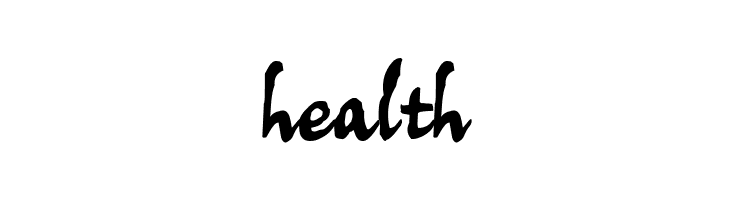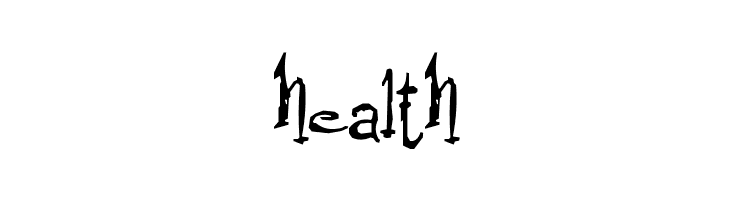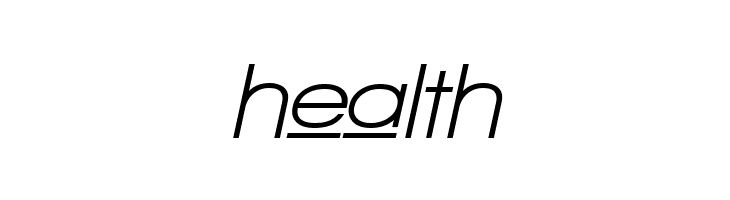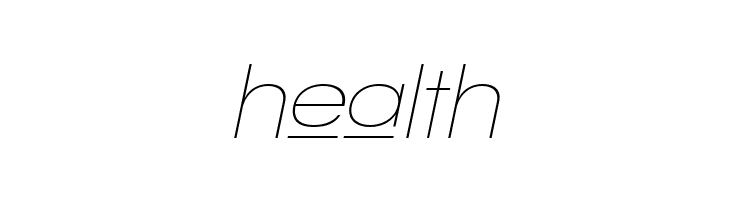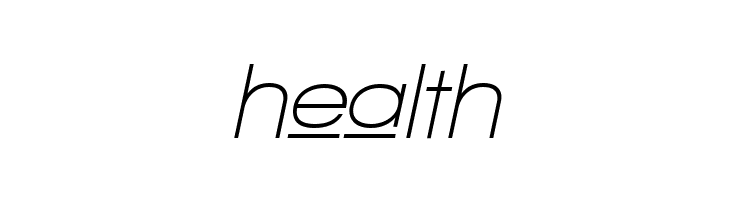
A modern, bold, and italicized typeface with a clean and dynamic design.
A bold, italicized font with a dynamic lightning bolt motif.
A bold, decorative font featuring gender symbols within each character.
A bold, stacked font with a modern and impactful design.
A bold, playful font with rounded, chunky characters.
A bold, slightly slanted serif font with a classic and elegant style.
A vintage, gothic blackletter font with ornate and distressed characters.
An ornate blackletter font with intricate, bold designs and historical flair.
A bold, Gothic-inspired font with sharp angles and strong vertical lines.
A traditional blackletter font with sharp, angular lines and intricate detailing.
A bold, decorative font with playful swirls and curves.
A bold, playful script font with a hand-drawn feel.
A classic serif font with ornate uppercase and traditional lowercase letters.
A cursive, handwritten font with elegant, flowing characters.
A bold, expressive script font with flowing cursive letterforms.
A dynamic and elegant handwritten cursive font.
A playful, chunky font with exaggerated curves and a whimsical style.
A bold, brush-style script font with a lively and artistic flair.
A bold serif font with angular serifs and a modern twist.
A playful, bold handwritten font with rounded, consistent letterforms.
A bold, playful font with rounded, bubbly characters.
A bold, playful font with rounded characters, perfect for creative projects.
An elegant and ornate script font with flowing, intricate letterforms.
A bone-themed decorative font perfect for spooky designs.
A bold, playful font with rounded, bubbly characters and a whimsical style.
A bold, elegant script font with interconnected characters and a sophisticated style.
A dynamic and fluid script font with elegant, flowing letterforms.
A playful, handwritten font with fluid and expressive strokes.
A bold, narrow serif font with a strong, authoritative presence.
An elegant script font with fluid, cursive strokes and graceful loops.
A bold, brush-style font with dynamic and expressive strokes.
A bold, italic, and condensed font with a modern and dynamic style.
A playful, hand-drawn font with smooth curves and a whimsical style.
A bold, calligraphic font with sharp, angular strokes and elaborate flourishes.